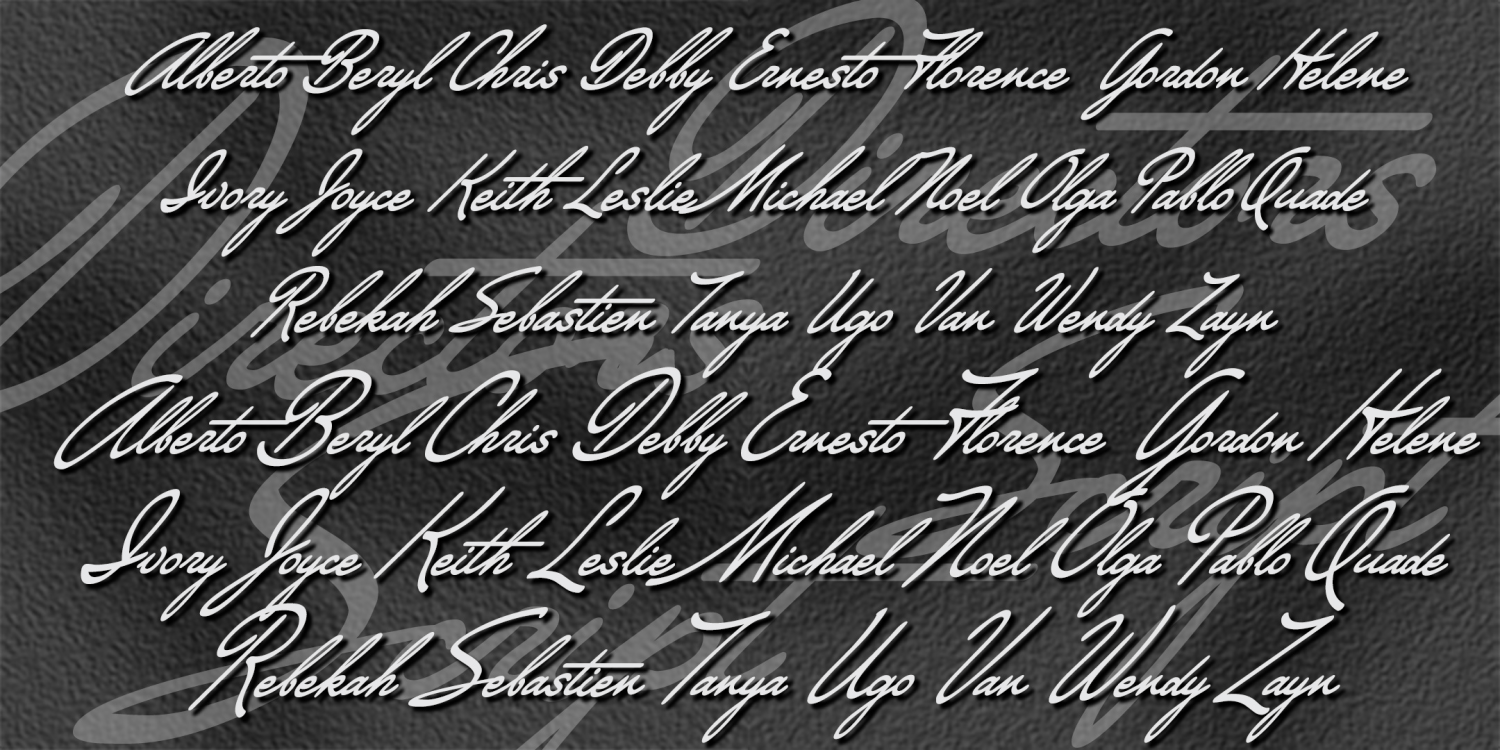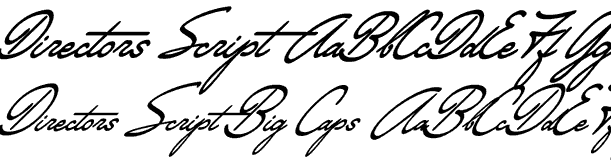
Directors Script
DIRECTORS SCRIPT was inspired by a sort of hand lettering often used in 1940s film credits. As seen in classics like Crossfire, Laura, and Gilda, a very sloped cursive like this is paired with a heavy roman. A second  Directors Script font font has capitals that are 50% larger than the regular caps, but re-weighted and aligned to harmonize with the lowercase for an even more dramatic look.
The Directors Script font family includes 195 glyphs.